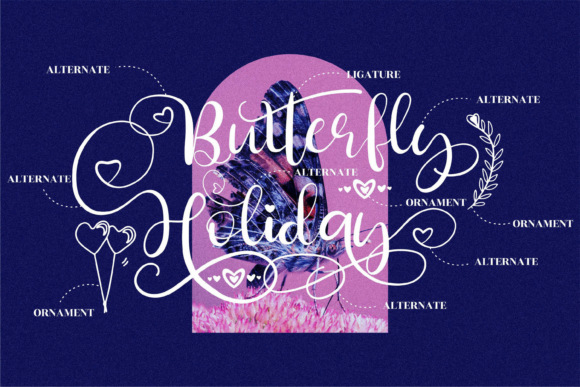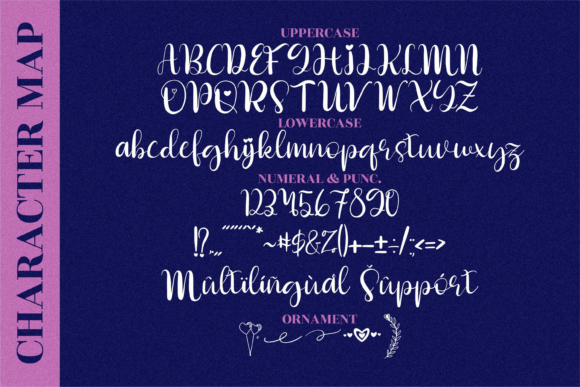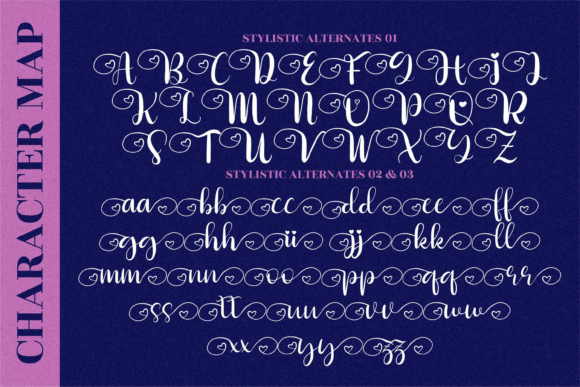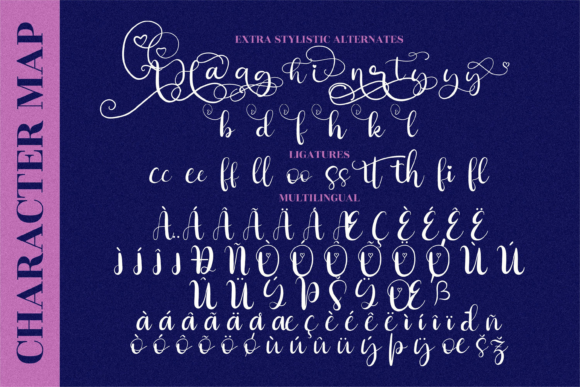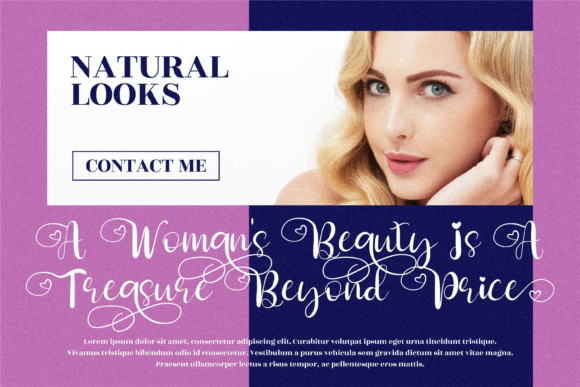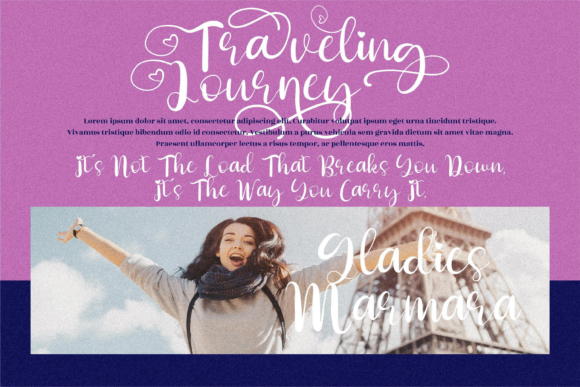
Have you ever been working on a design project, and suddenly, the perfect font pops into your head? For me, it was a romantic wedding invitation – the words “Forever and Always” written in a beautiful, flowing script that captured the essence of love. That’s exactly what the Butterfly Holiday Font can do for you.
This delicate script font is a masterpiece of detail and craftsmanship. Whether you’re designing a wedding invitation, a greeting card, or a children’s book, the Butterfly Holiday Font has the potential to elevate your creation and leave a lasting impression. With its PUA encoding, you can access all glyphs and swashes with ease, making it a valuable addition to your font library.
Key Features of Butterfly Holiday Font
- Unique Characteristics: Butterfly Holiday Font features a unique blend of whimsical and elegant elements, with intricate details and ornate flourishes, making it perfect for adding a touch of sophistication and playfulness to designs.
- Script and Regular Styles: The font includes both script and regular styles, allowing users to choose the perfect font to match their design needs.
Designer Review: Butterfly Holiday Font
As a designer, I have had the opportunity to work with many fonts, but the Butterfly Holiday Font truly stands out from the rest. Here are my honest thoughts on this delightful font:
- The playful and whimsical feel of the font is perfect for creating a sense of joy and wonder in your designs.
- The variety of letterforms and flourishes add a unique touch to any text, making it ideal for headings and titles.
- The font is highly customizable, allowing you to adjust the size, color, and spacing to fit your design needs.
- The font may not be the best choice for body text, as it can be a bit too ornate and distracting for large blocks of text.
- The font’s unique style may not be suitable for formal or professional designs, such as resumes or business reports.
Overall, I think the Butterfly Holiday Font is a great choice for designers who want to add a touch of magic and whimsy to their designs. While it may not be suitable for every project, it’s a great addition to any font library.
For the most effective use of the Butterfly Holiday Font, consider the following tips:
– Use the font for titles and headings to add a touch of elegance.
– Pair the font with a simple background to let the text stand out.
– Use the font for special occasions like weddings, birthdays, or holidays.
– Experiment with different font sizes and colors to create a unique look.
Alternatives to Butterfly Holiday Font
Copperplate
Copperplate is a classic calligraphy font that resembles handwritten text. It’s ideal for use in invitations, greeting cards, and other formal documents where a touch of elegance is desired. Copperplate is more formal and traditional compared to Butterfly Holiday Font, which has a whimsical and playful feel.